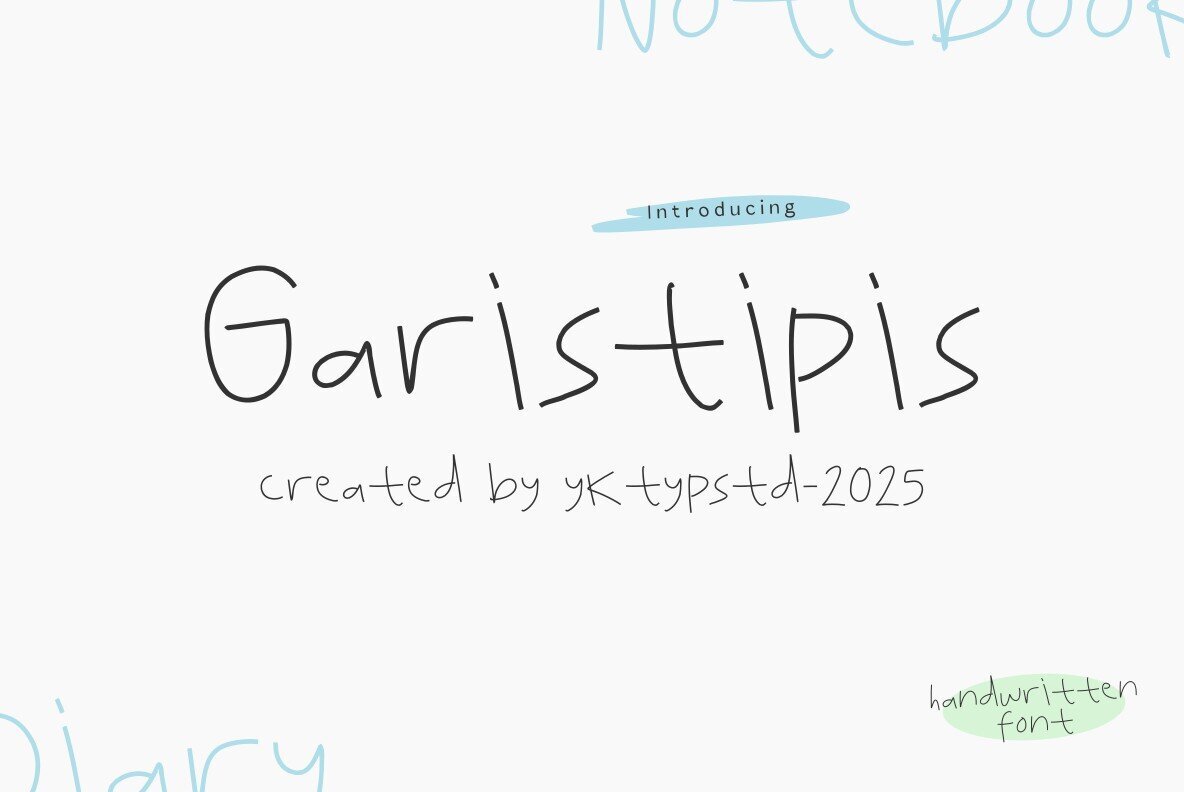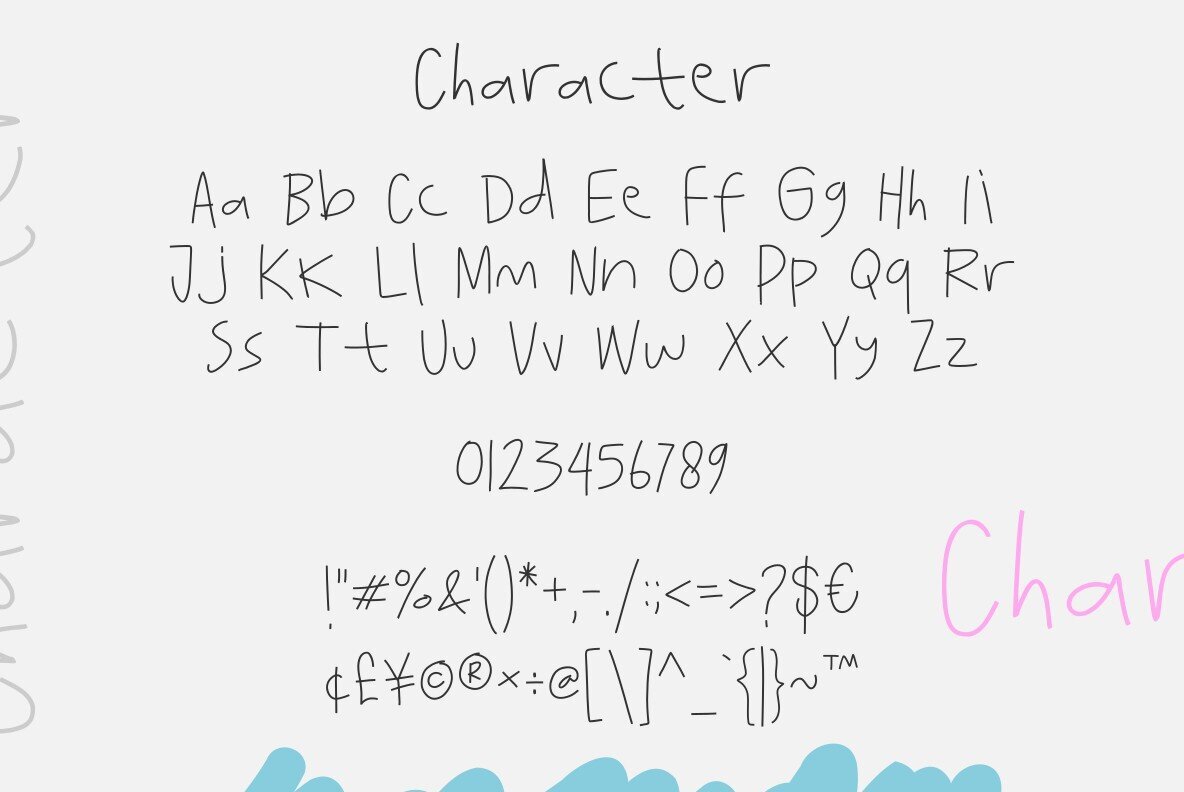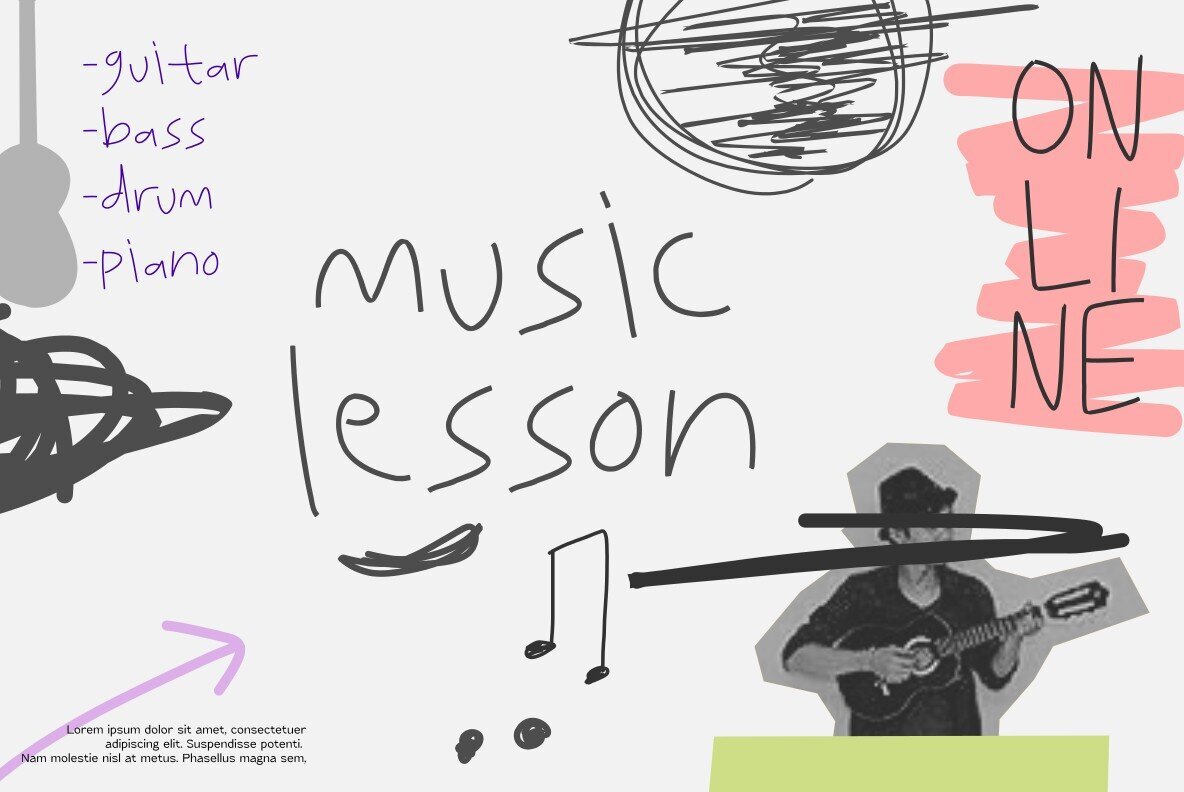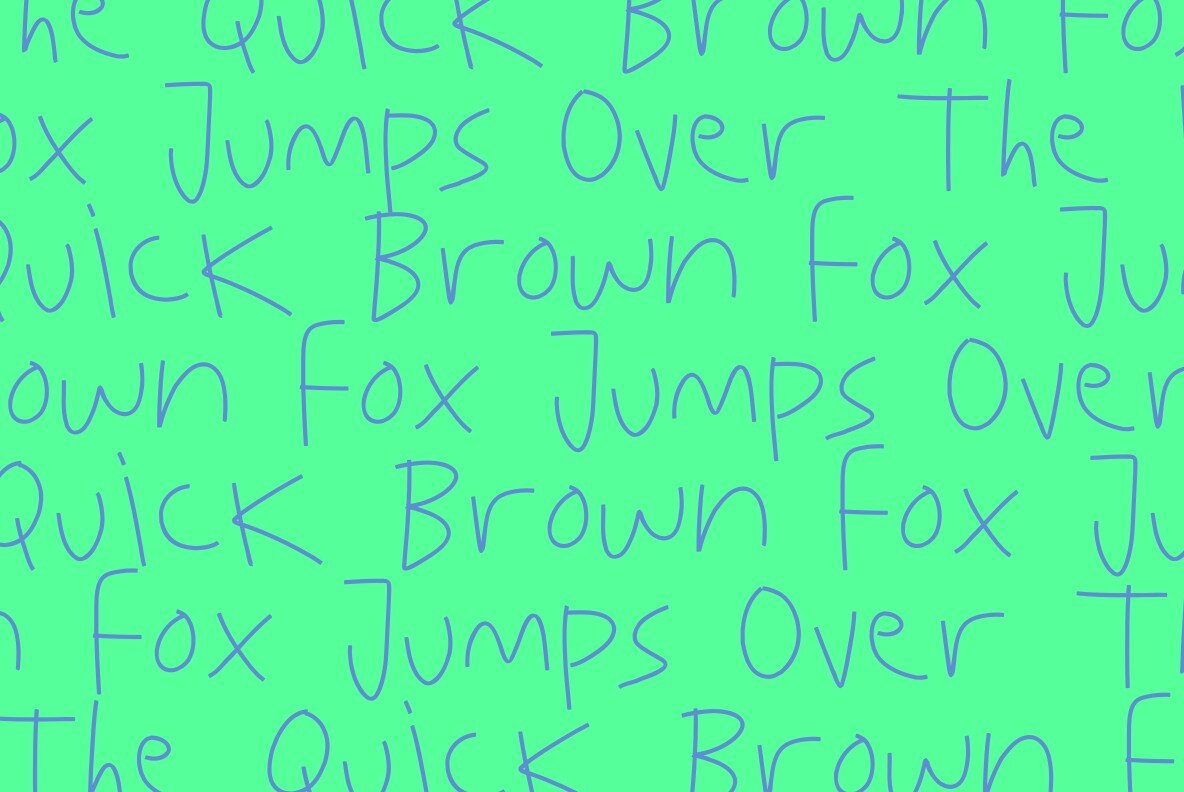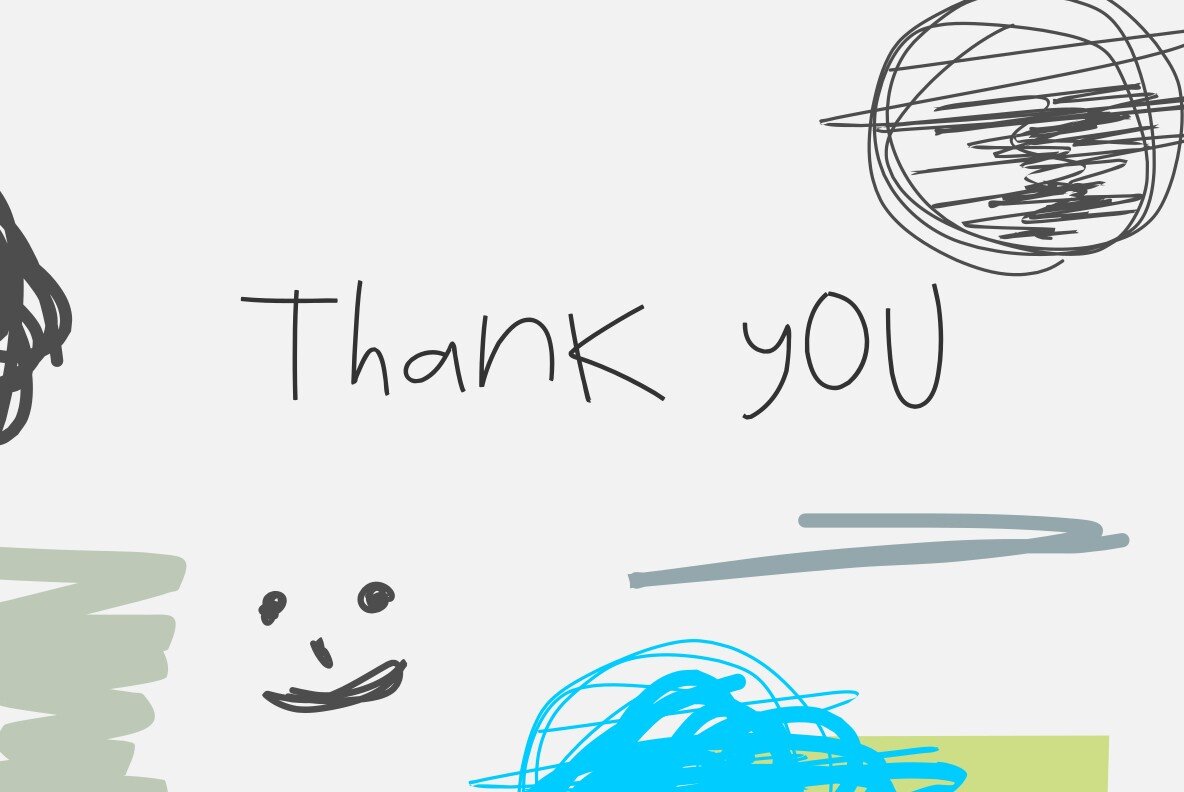
Garistipis Font
Garistipis Regular
Garistipis is a delightful one-line font that exudes playful charm and creativity. With its endearing resemblance to a child's doodle, it brings an invigorating, visually arresting appeal to any design project. Whether you're crafting greeting cards, designing product labels, or seeking to add cheer to packaging, Garistipis is your go-to choice for a captivating and joyful aesthetic. Let Garistipis infuse your projects with an atmosphere of joy and sunshine, making your designs truly stand out.Garistipis: The Playful One-Line Font